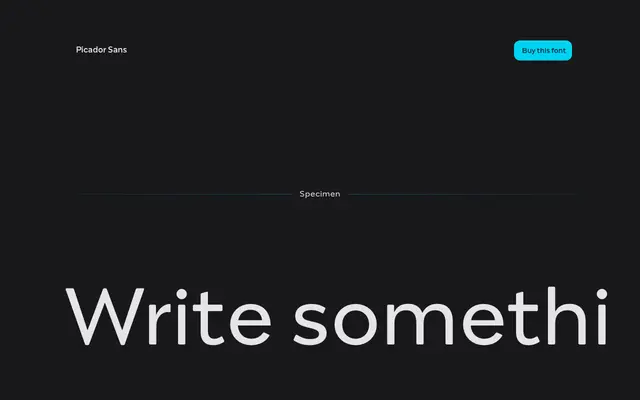
Picador Sans
Capitalics · Maciej Włoczewski
A condensed humanist sans with calligraphic letter endings, offered in ten weights with matching italics for editorial and text use.
Designed by Maciej Włoczewski, Picador Sans pairs condensed proportions with subtle pen-influenced terminals that ease reading in long text settings. The family spans ten weights from ExtraThin to ExtraBold, each with a matching italic, and includes small caps, old-style figures, tabular figures, superscript, subscript, ligatures and fractions. Each style carries over 1,200 glyphs covering the Latin script.
Described as a modern sans serif with subtle calligraphic letter endings, giving it humanist characteristics despite its condensed proportions. The pen-influenced terminals and strong legibility at text sizes align with the humanist sans category.